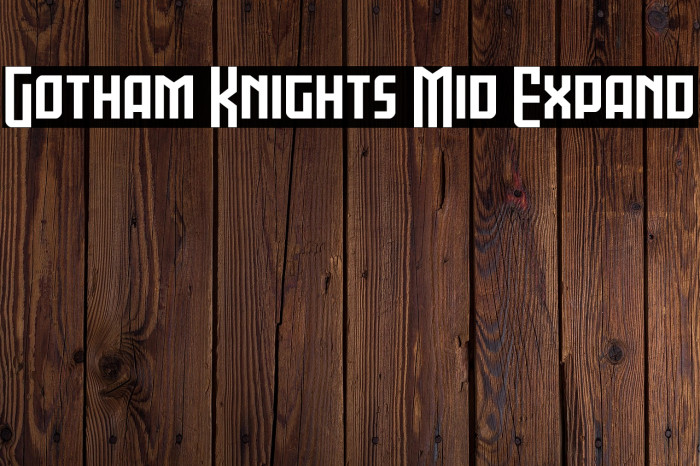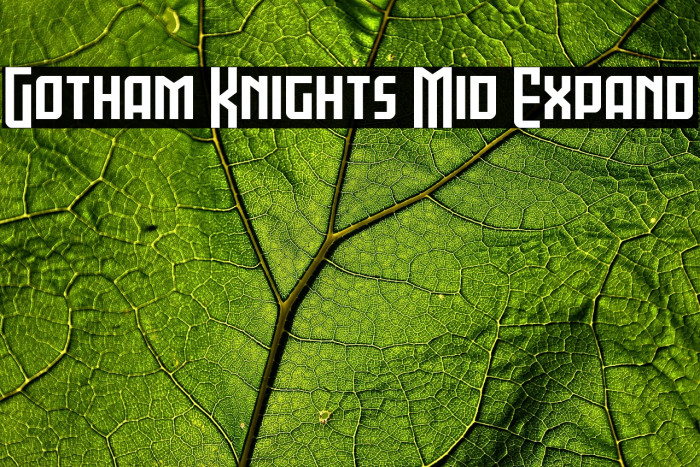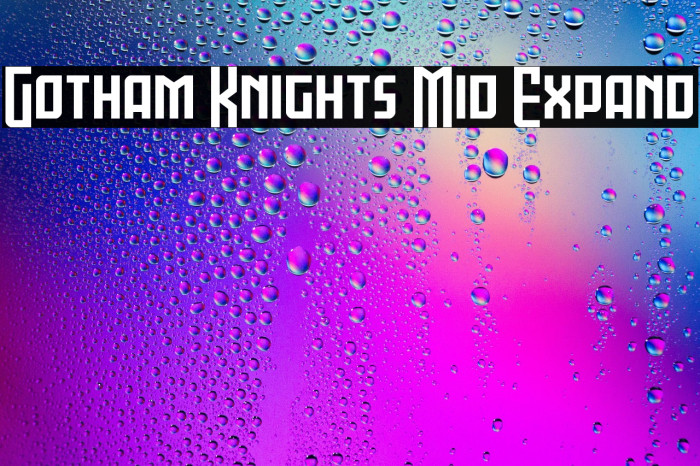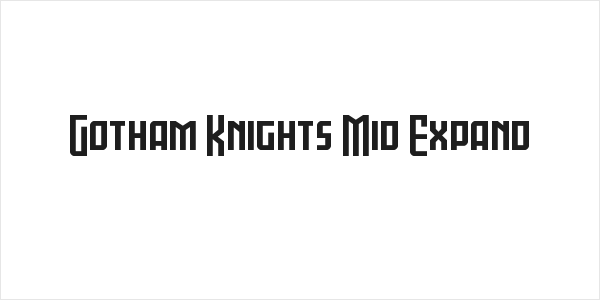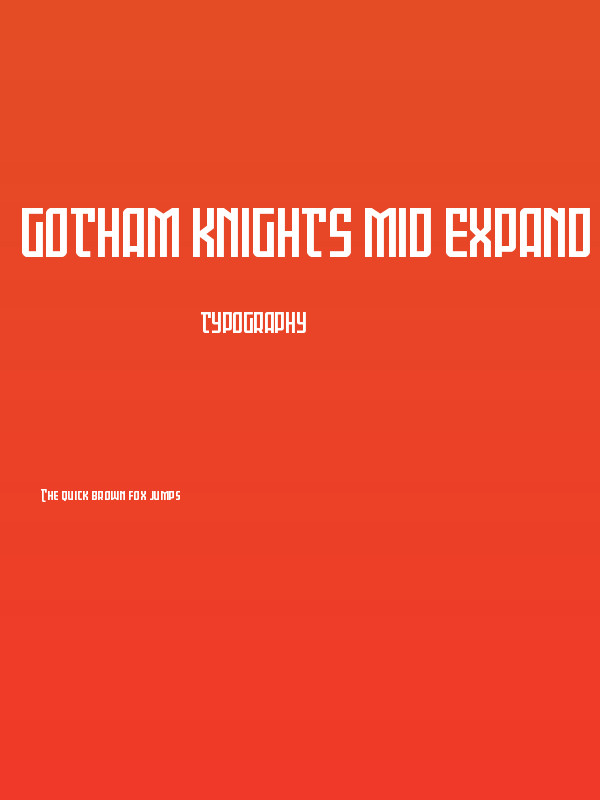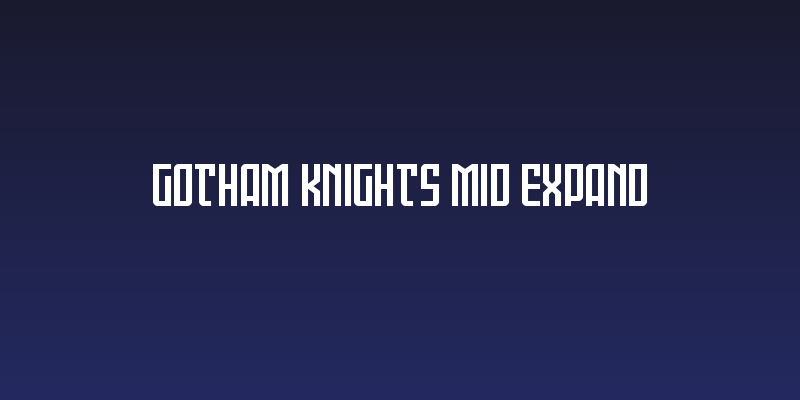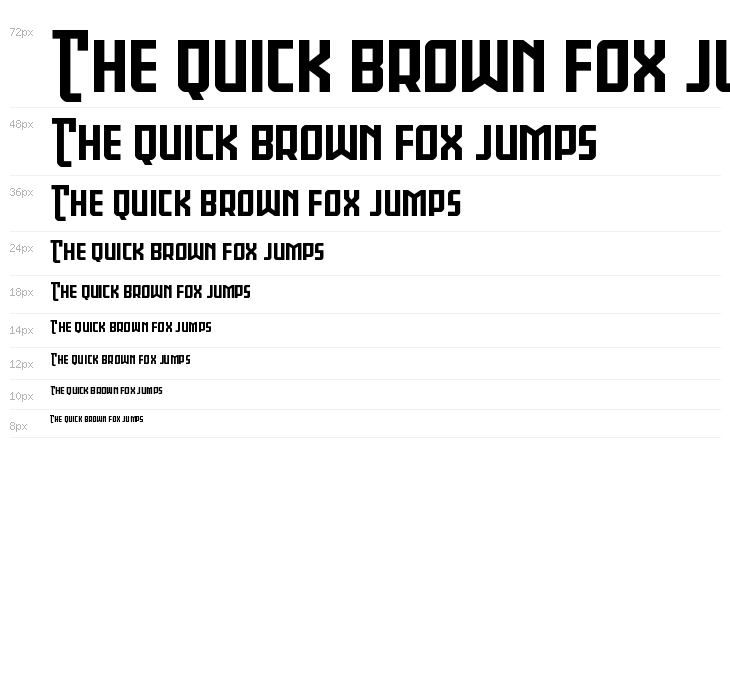
Gotham Knights Mid Expand Font
Gotham Knights Mid Expand Description
This font features a bold and geometric design with a strong presence. The characters are constructed with sharp angles and straight lines, giving it a modern and industrial feel. The uppercase letters are uniform in height, while the lowercase letters maintain a consistent style, contributing to a cohesive look. The numerals are equally bold and match the overall aesthetic, ensuring readability and impact. Special characters are designed with the same geometric precision, making them stand out. This font is ideal for projects that require a strong, assertive typeface.
| Proposed Projects | Ideal for branding, posters, video game titles, and any project requiring a strong, modern typeface. |